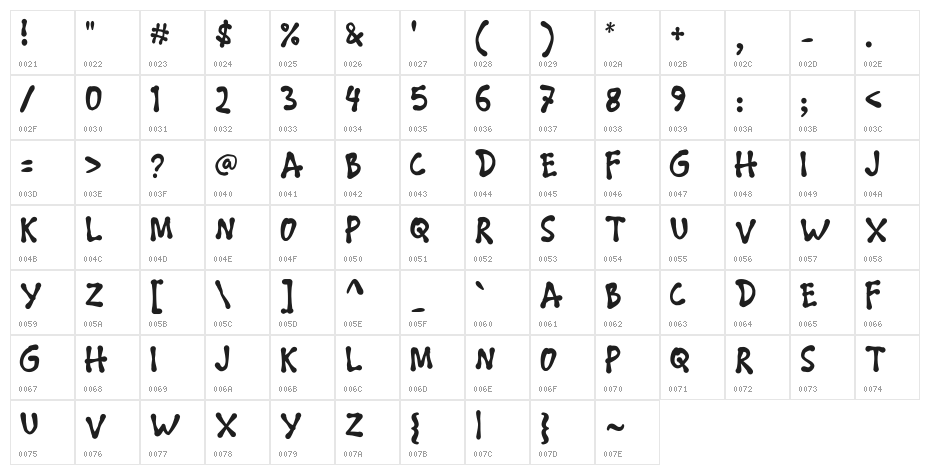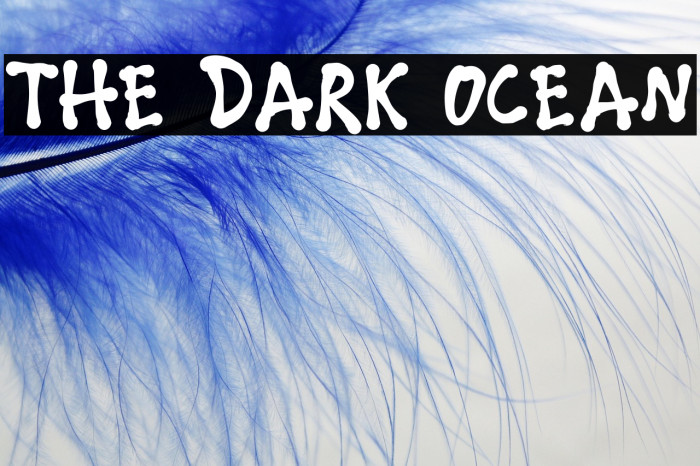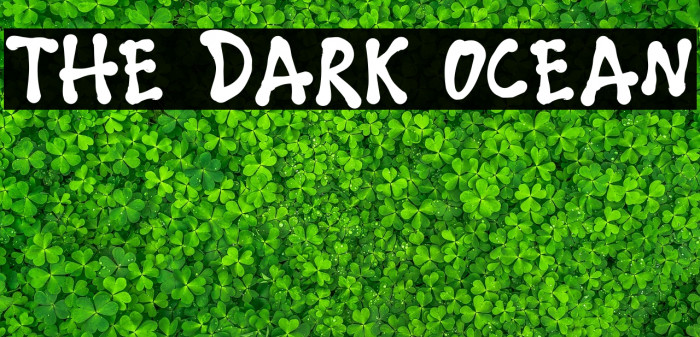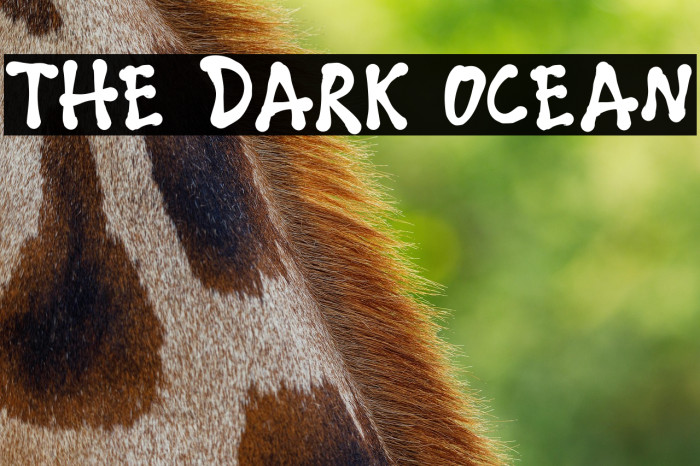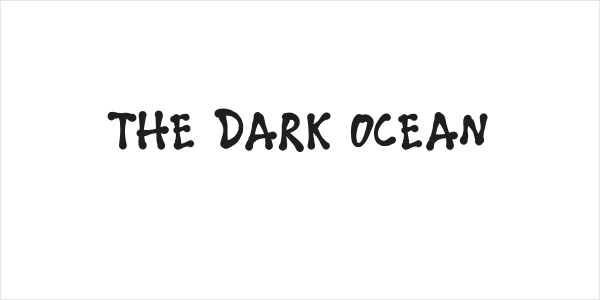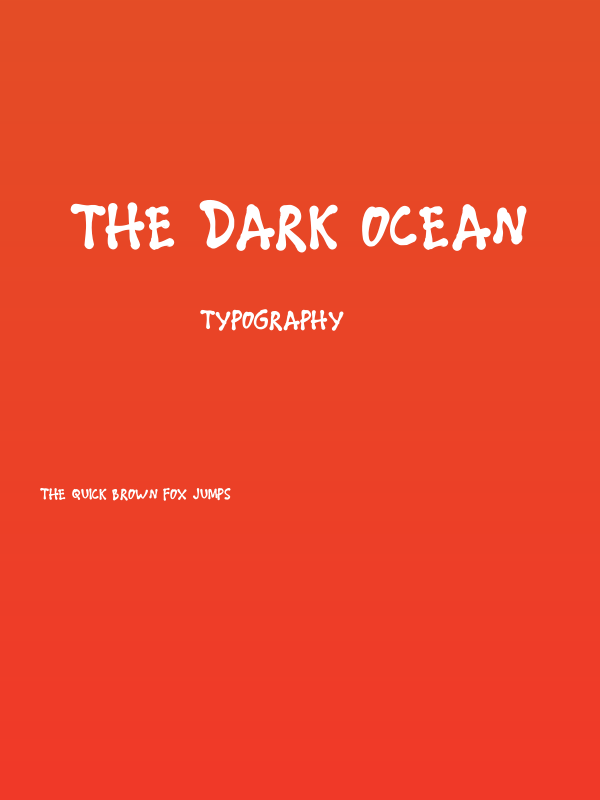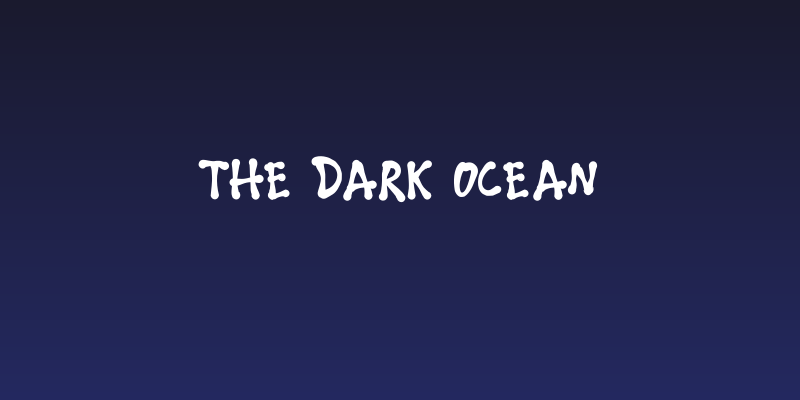
THE DARK OCEAN Font
THE DARK OCEAN Description
This font features a bold and playful handwritten style, characterized by its thick strokes and slightly irregular shapes. The letters have a casual and friendly appearance, with rounded edges and a consistent weight throughout. The uppercase and lowercase letters maintain a uniform height, creating a cohesive look. Numbers and special characters follow the same design principles, ensuring readability and a harmonious aesthetic. The font's informal style makes it suitable for creative and fun projects, adding a touch of personality and warmth to any design.
Overall StylePlayful
Proposed ProjectsIdeal for children's books, greeting cards, posters, and playful branding.